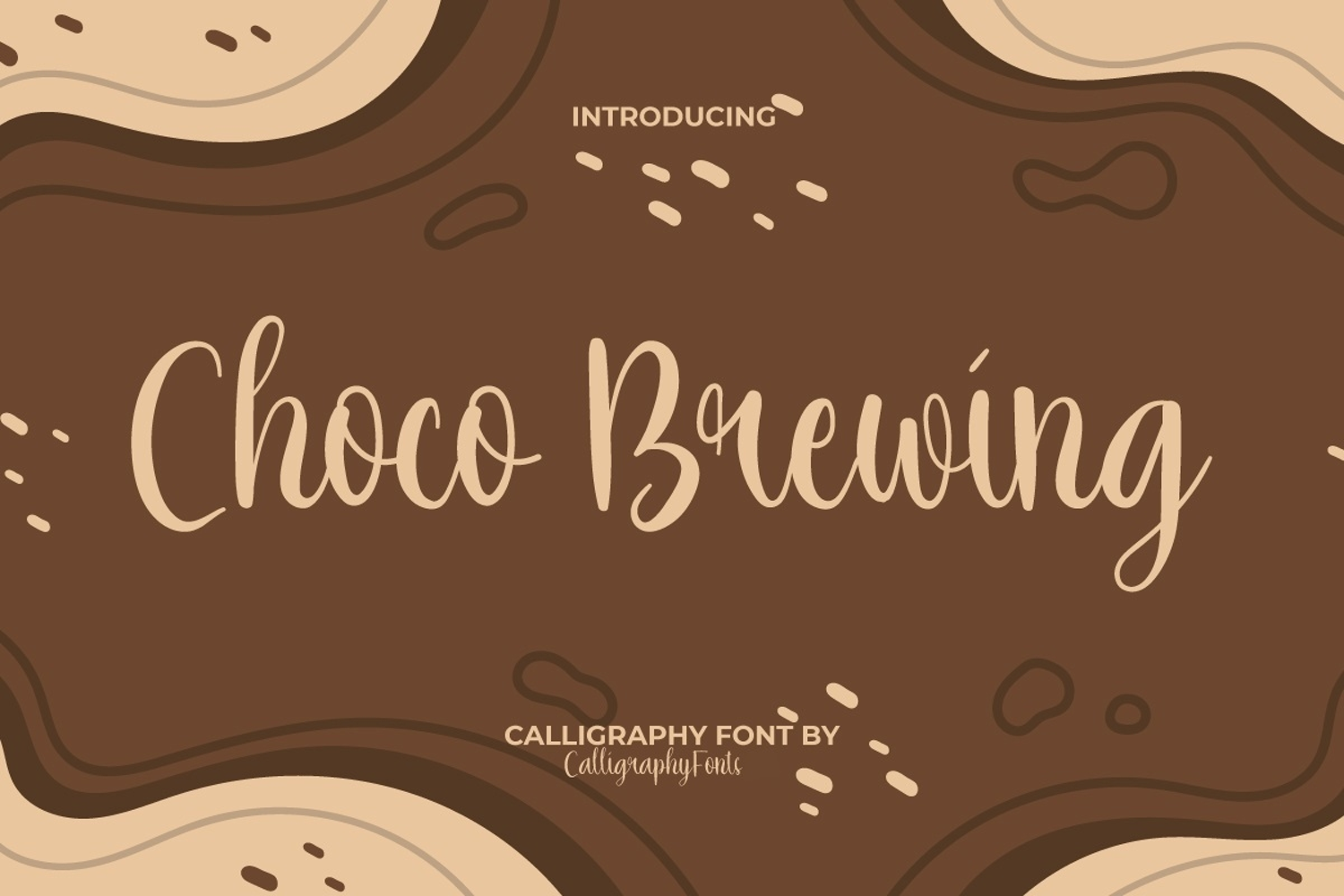
Choco Brewing Font
Choco Brewing Font is a sweet and stylish modern calligraphy, allowing you to create and get custom dynamic text with your dream layout. It will be perfect for your next design, such as banners, blogs, brand logo, card designs, covers, headers, invitations, labels, product packaging, signs, stationery, stickers, template mockup, titles, websites, and much more.
Introducing Choco Brewing Calligraphy Font – a playful and deliciously styled typeface that brings sweetness and creativity to every design. Inspired by the cozy feeling of a warm café and the irresistible charm of chocolate delights, this font was created to make your projects stand out with fun, friendliness, and irresistible appeal.
Choco Brewing Calligraphy Font is perfect for a wide range of creative projects, from bakery branding, café menus, dessert packaging, social media content, posters, invitations, product labels, to DIY crafts. Its unique handwritten style adds warmth, making it ideal for both professional. Whether you’re designing for a sweet café, a food blog, or simply want to add a tasty touch to your design, Choco Brewing Font is your perfect choice.
Imagine a cupcake shop logo, a candy package design, or an Instagram post with this font—it instantly communicates warmth, creativity, and fun. With Choco Brewing Calligraphy Font, your projects won’t just look good—they’ll leave a lasting impression.
Choco Brewing Calligraphy Font is a casual and elegant calligraphy style font that comes with beautiful ligatures that not only add to the beauty of this font but also make any design stand out. This allows you to create any look that feels alive for your projects, such as bakery, baking class, chocolate producers, confectioner, event organizer, graphic design, pastry chef, printing, publishing, restaurant, shop selling sweet things, etc.